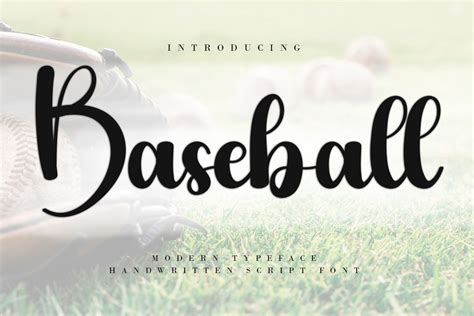
Score Big: Baseball Fonts Free Download Guide
Hey there, font fanatics and baseball enthusiasts! Ever wanted to give your designs that classic, All-American feel? Well, you’re in the right place! We’re diving headfirst into the world of baseball fonts , and guess what? You can snag some of these beauties for free download in the .ttf format. That’s right, we’re talking about the fonts you see on jerseys, scoreboards, and promotional materials, all ready to give your projects a home run. Get ready to knock it out of the park with your designs! Let’s get started on the exciting world of baseball font free download ttf .
Why Baseball Fonts Are a Home Run
Alright, guys, let’s talk about why baseball fonts are so darn awesome. These fonts aren’t just about the sport; they represent a whole vibe. They embody the spirit of competition, teamwork, and the timeless tradition of the game. Think about it: the bold, often slightly distressed lettering that screams, “ This is baseball! ” They’re perfect for a wide range of projects, from designing team logos and merchandise to creating eye-catching posters and social media graphics. A baseball font adds an instant layer of authenticity and nostalgia. If you’re working on anything related to sports, especially baseball, these fonts are a must-have. They’ll help you capture that specific aesthetic, making your work instantly recognizable and memorable. When you choose a baseball font , you’re not just picking a typeface; you’re choosing a piece of Americana, a symbol of a game that has captured the hearts of millions. Also, the best part is that you can download baseball font free download ttf , which is really convenient.
Let’s get even more specific. Imagine designing a logo for a local little league team. A baseball font is the perfect choice. It immediately connects with the target audience – parents, players, and fans – and conveys the spirit of the game. Or, let’s say you’re creating promotional materials for a baseball-themed event. Again, a well-chosen baseball font will instantly grab attention and set the right tone. It’s about more than just the visual aspect; it’s about creating an emotional connection. These fonts evoke feelings of excitement, camaraderie, and the thrill of the game. That is why the baseball font free download ttf is so popular. In short, baseball fonts are versatile, impactful, and just plain cool. They’re a valuable asset for any designer or anyone looking to add a touch of baseball flair to their work. So, whether you’re a seasoned designer or just starting out, exploring the world of baseball fonts is a fantastic idea. You’ll find a wealth of options, from classic block letters to more stylized and modern variations, all designed to capture the essence of the game.
When browsing these sites, pay close attention to the font licenses. Most free fonts are fine for personal use, but if you plan to use them in commercial projects (like designing logos for clients or selling merchandise), you’ll need to make sure you have the appropriate license. Some fonts require attribution, while others may require you to purchase a commercial license. Always read the fine print! Also, make sure that the fonts are available in .ttf (TrueType Font) format, which is the most common format and works well with most design software. By keeping these tips in mind, you’ll be well on your way to finding the perfect baseball font free download ttf and making your designs shine!
Tips for Using Baseball Fonts in Your Designs
Alright, you’ve found a fantastic baseball font and downloaded the .ttf file. Now, how do you make the most of it? Here are some pro tips to help you use these fonts effectively and create designs that really hit it out of the park:
• Pairing Fonts: Don’t just stick with one font! Experiment with pairing your baseball font with other fonts to create visual interest. Try pairing a bold baseball font with a simpler, cleaner font for body text. This contrast can make your headlines stand out while keeping your overall design easy to read. You can pair them when you have the baseball font free download ttf .
• Color Palette: Baseball fonts look great with classic baseball colors. Think red, white, blue, and black. But don’t be afraid to get creative! Experiment with different color combinations to match your specific project’s needs. Consider the feel you want to create – a vintage look might benefit from muted tones, while a modern design could use vibrant, high-contrast colors. So be creative with the baseball font free download ttf .
Conclusion: Your Home Run Design Starts Here!
Well, there you have it, folks! We’ve covered everything you need to know about baseball fonts and how to get your hands on them for free download in the .ttf format. From finding the perfect font to using it effectively in your designs, you’re now equipped to create stunning, baseball-themed graphics that will wow your audience. Remember to explore the different styles, understand font licensing, and have fun with it! So go out there, download those fonts, and start designing. Whether you’re a seasoned pro or a design newbie, the world of baseball fonts has something for everyone. With a little creativity and the right font, you can knock your designs out of the park! And remember, it all starts with a baseball font free download ttf . So get downloading and start creating! You are only a click away from the baseball font free download ttf !